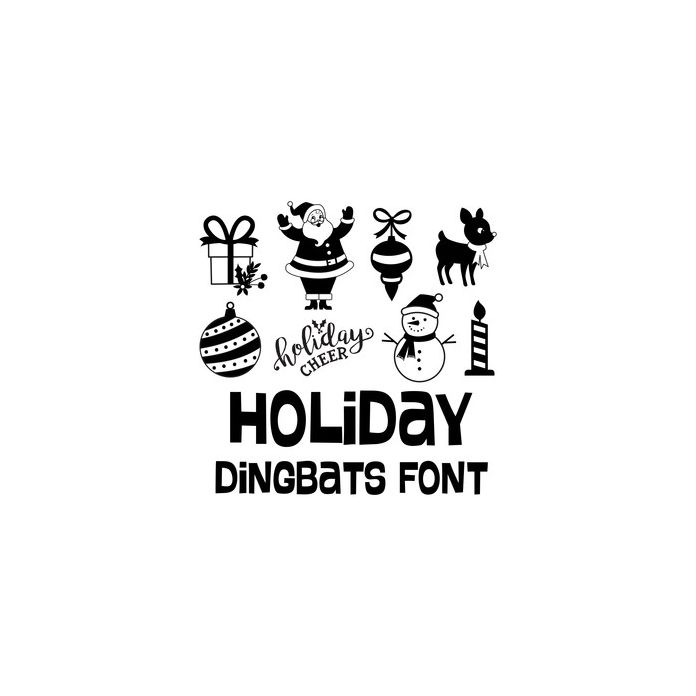
holiday dingbats font
This cute dingbat font includes 26 holiday icons that you can type + cut. Make adorable holiday themed projects with this fun font.